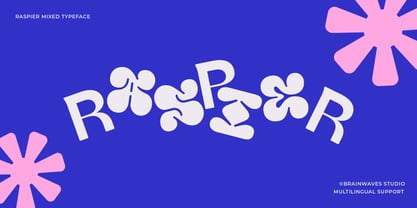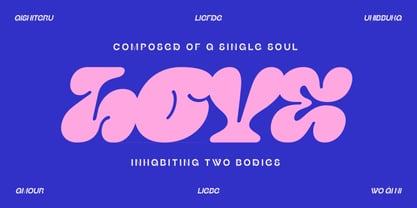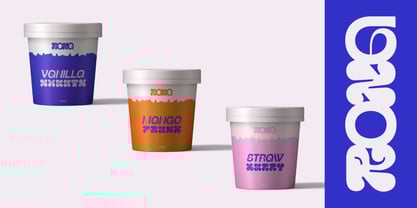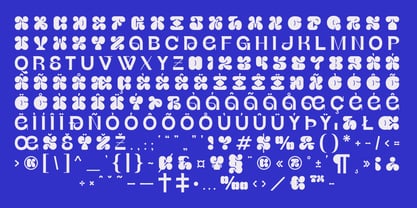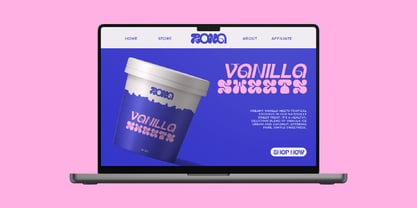
Raspier Mixed
by Brainwaves Studio
The Raspier Mixed Font Family was designed by Lucky Fitriadi and published by Brainwaves Studio. Raspier Mixed contains 2 styles and family package options.
Introducing Raspier, a truly distinctive font that brings a fresh, contemporary feel to any design. It masterfully blends the clean, approachable lines of a rounded sans-serif with the playful, engaging charm of bubble letterforms. The result is a typeface that feels both modern and friendly, sophisticated yet unpretentious.
Raspier stands out with its inviting softness and unique character, ensuring your message is not just seen, but felt. The rounded edges contribute to excellent legibility and a welcoming aesthetic, while the subtle bubble influences add a memorable touch of personality.